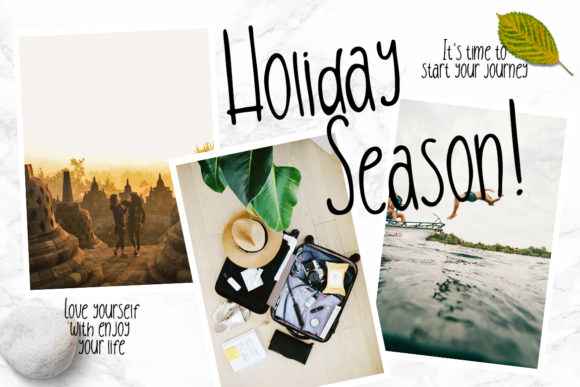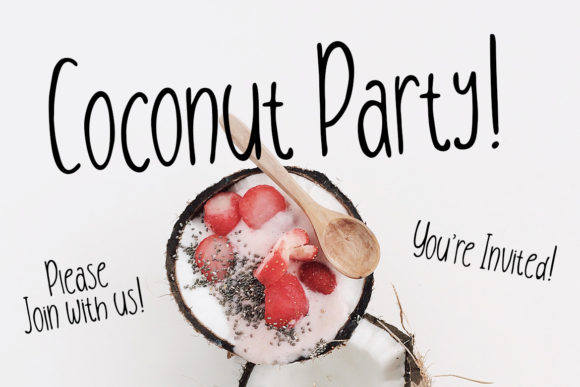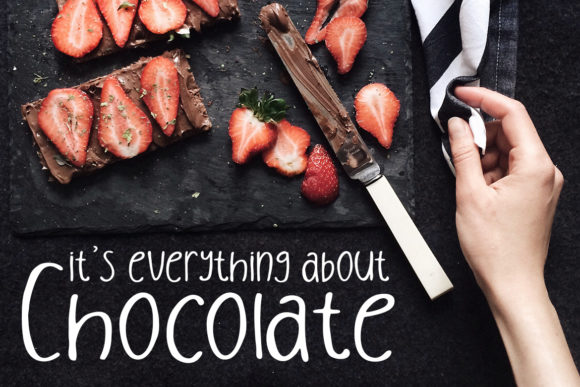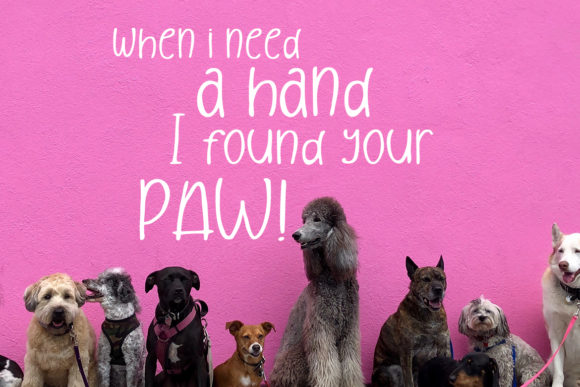
After Sunset Font
About After Sunset Font
The After Sunset is a clean handwritten condensed font. It has a playful, cute, unique, and funny feel and includes lots of personality.
It’s perfect for branding projects, logos, wedding designs, social media posts, advertisements, product packaging, product designs, labels, photography, watermarks, invitations, stationery and every other design which needs a handwritten feel.